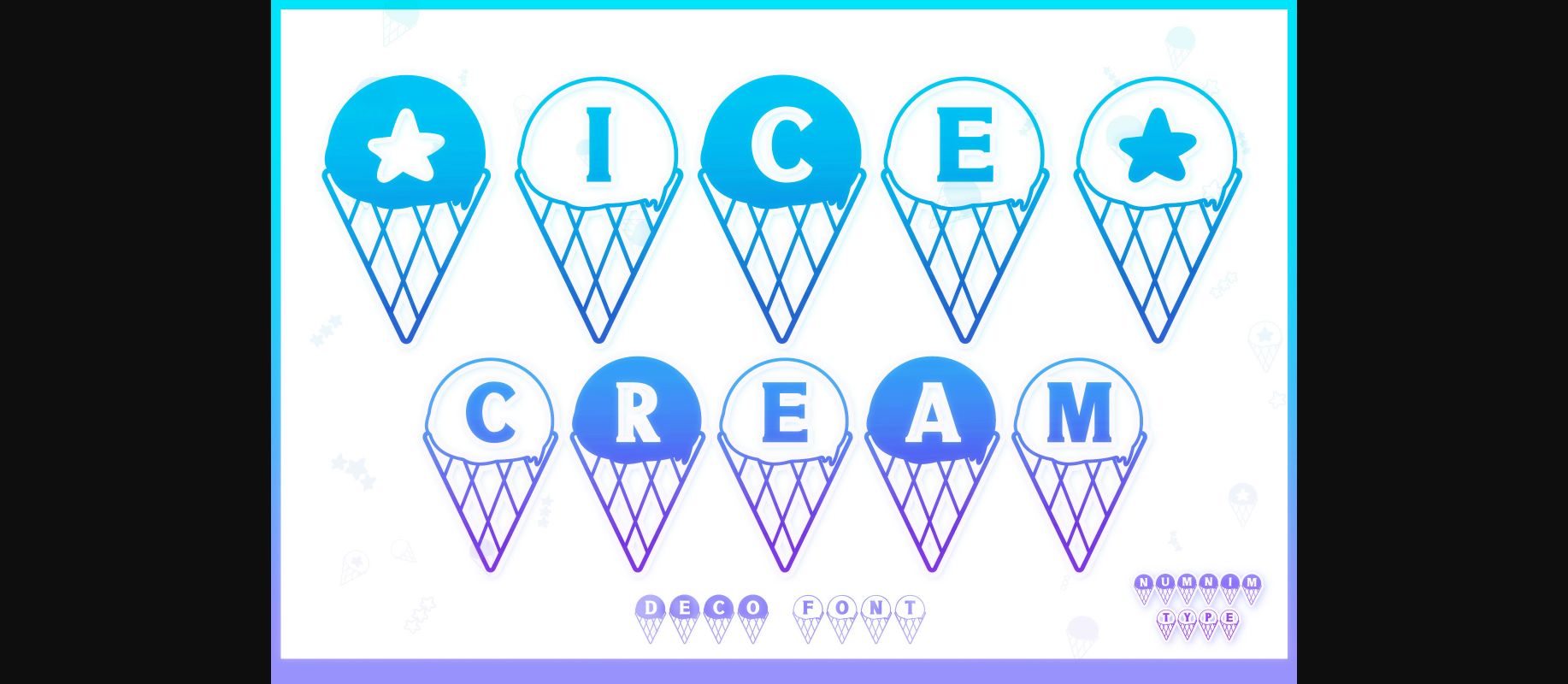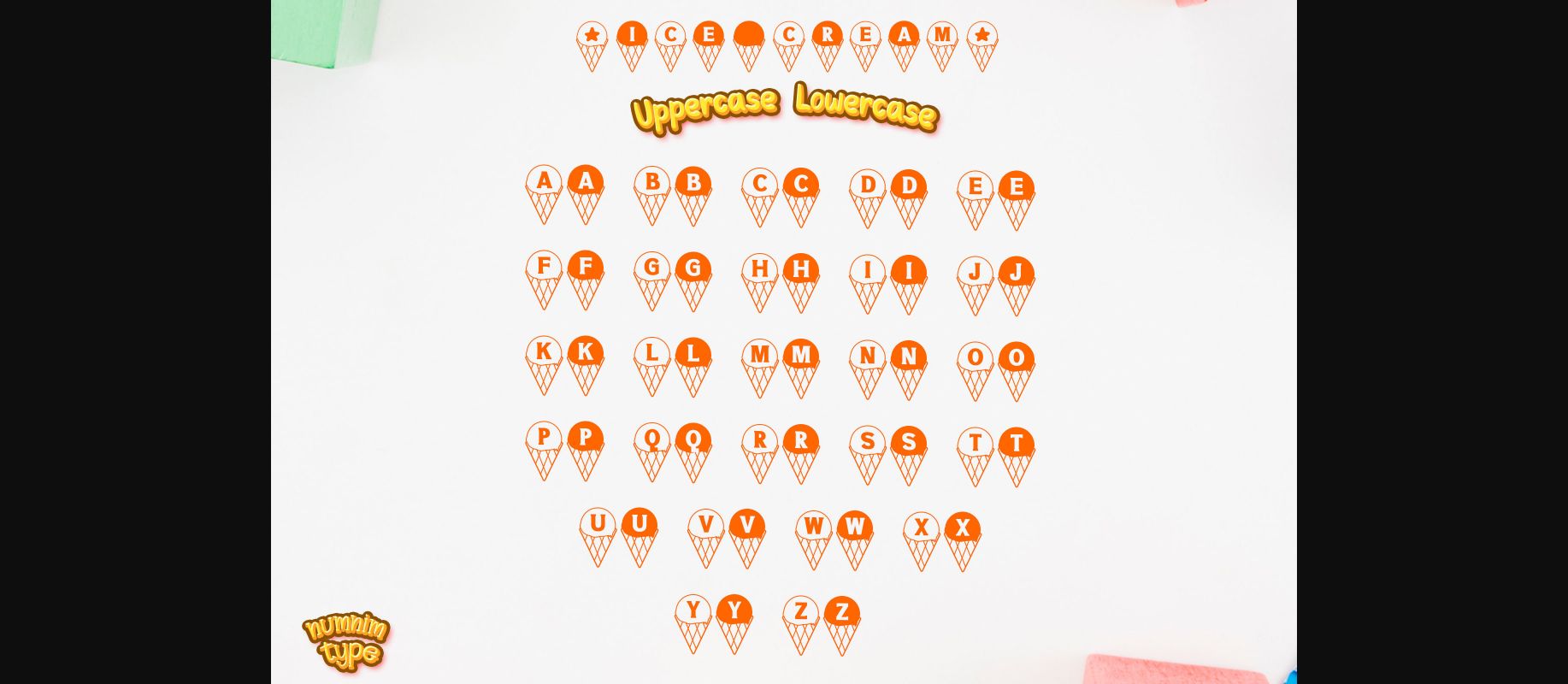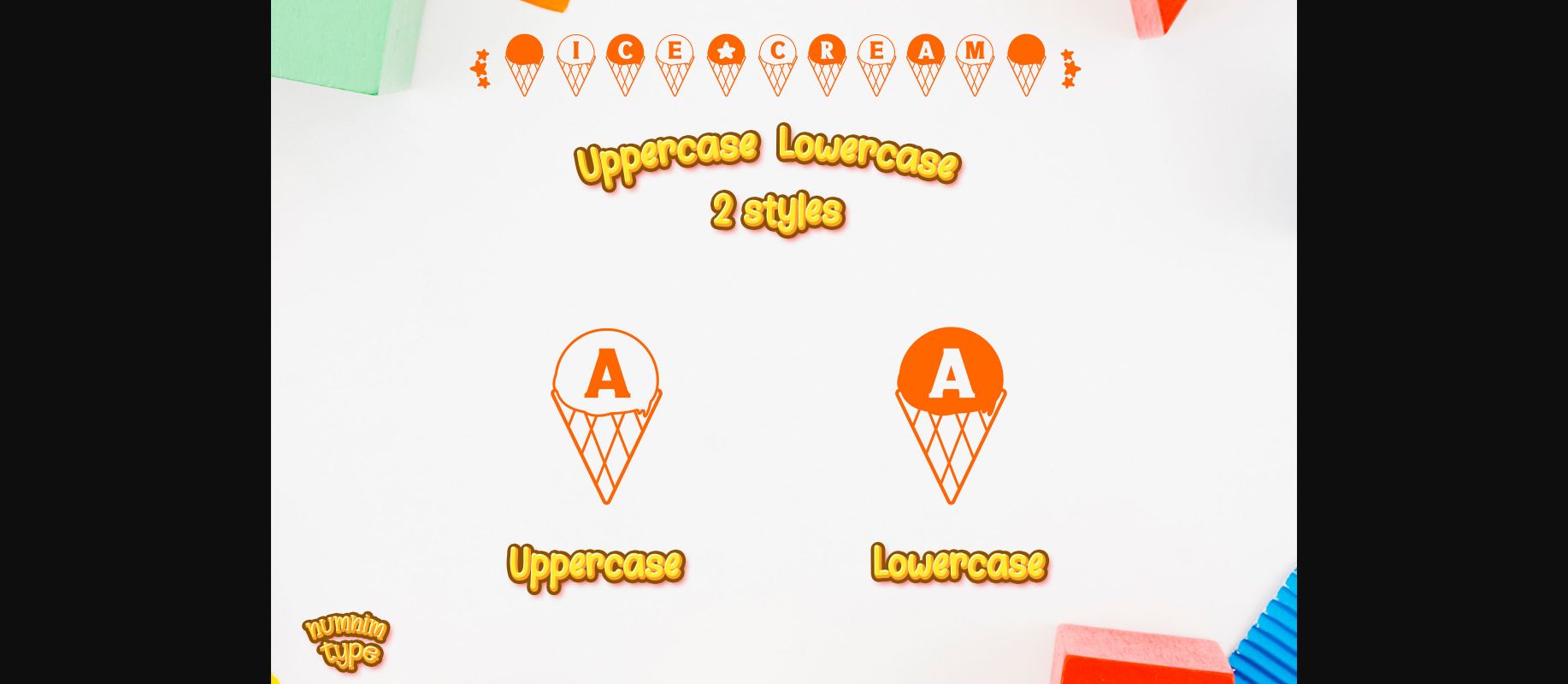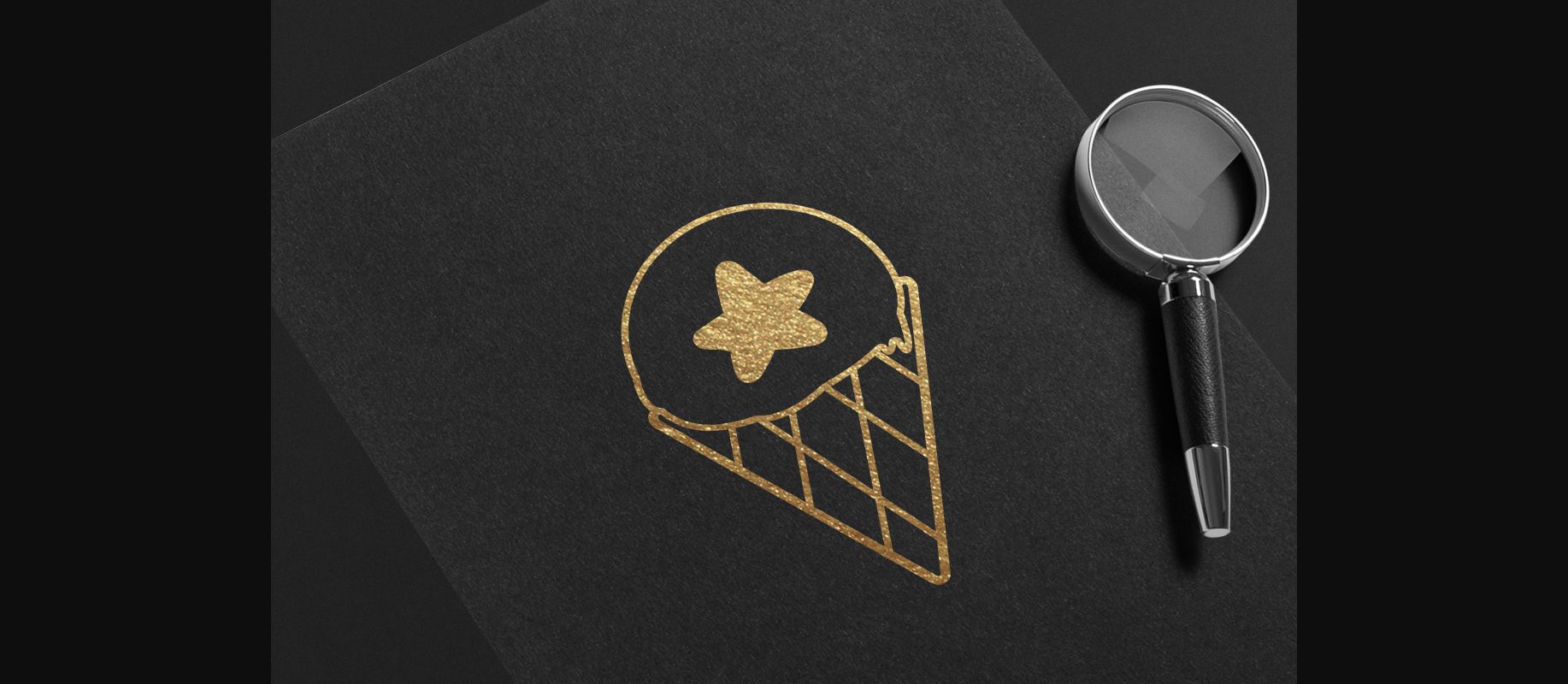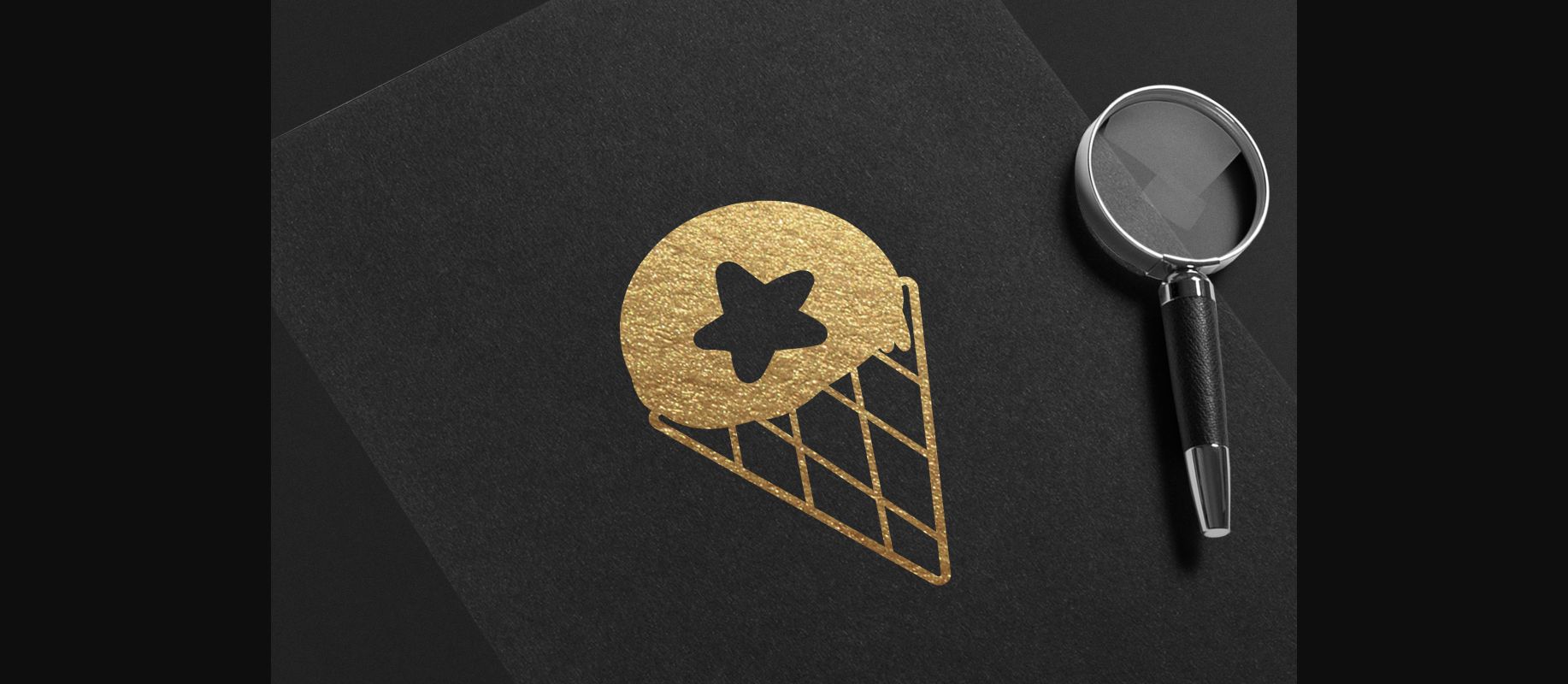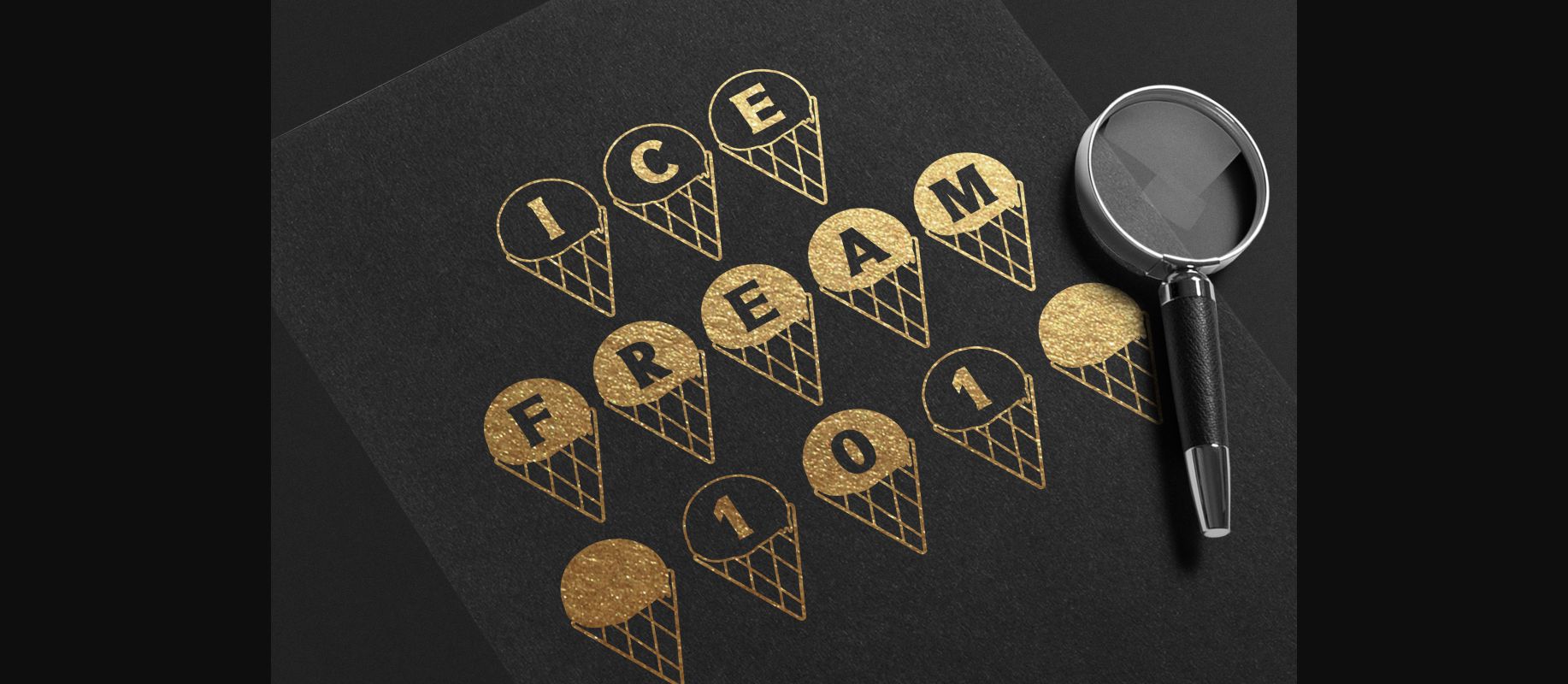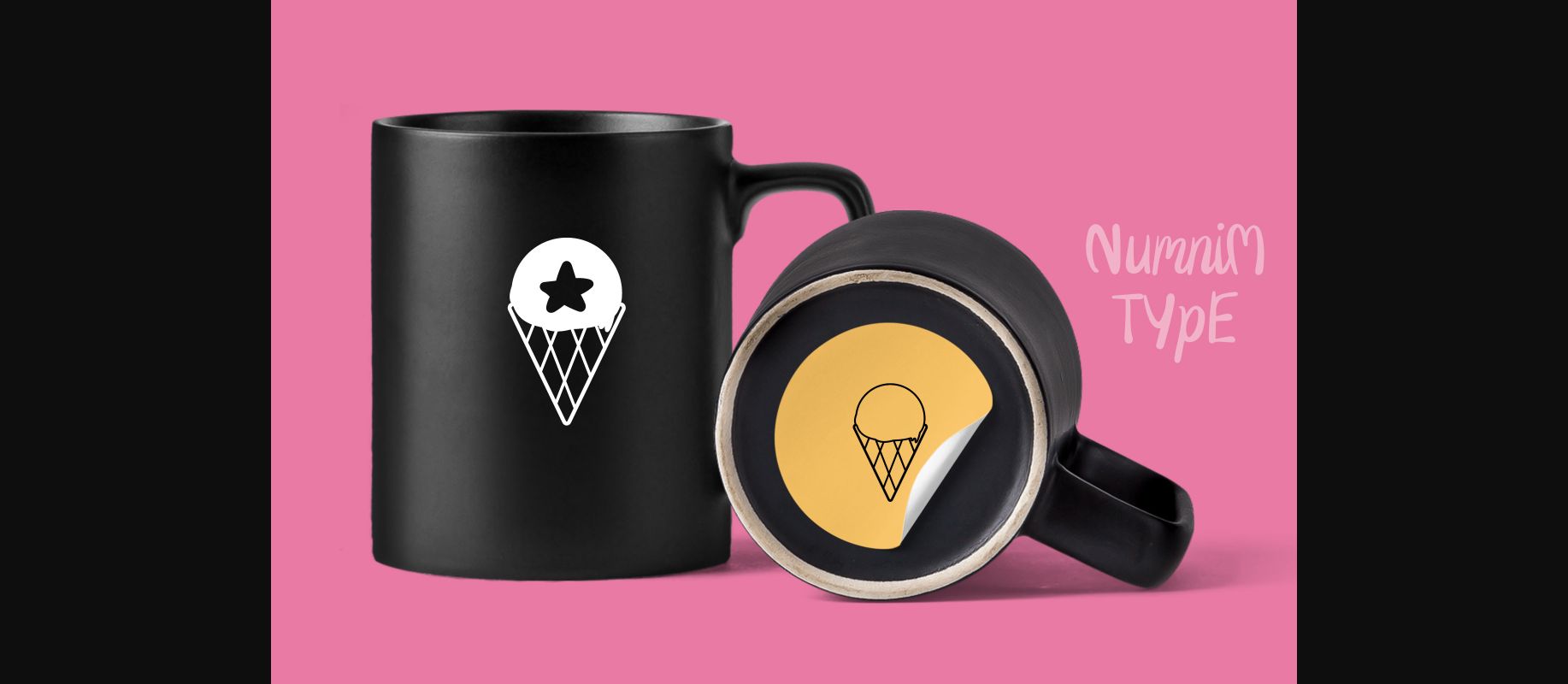
Ice Cream Font
About Ice Cream Font
Ice Cream is a cool and uniquely crafted decorative font. Its fun and playful characters make it the perfect font for stickers, mugs, t-shirts, ornaments, summer event cards, event invitations, and many more! This font is PUA encoded which means you can access all glyphs and swashes with ease!